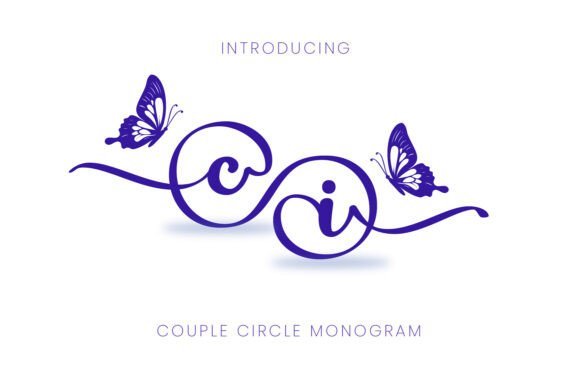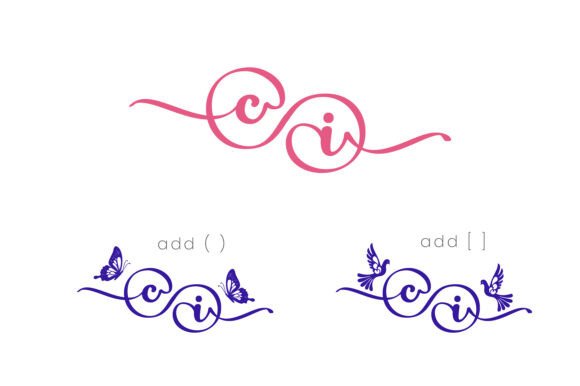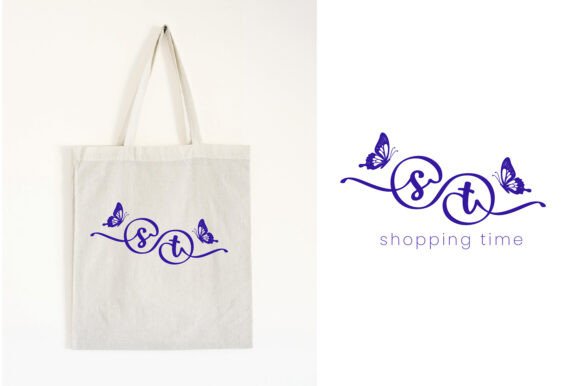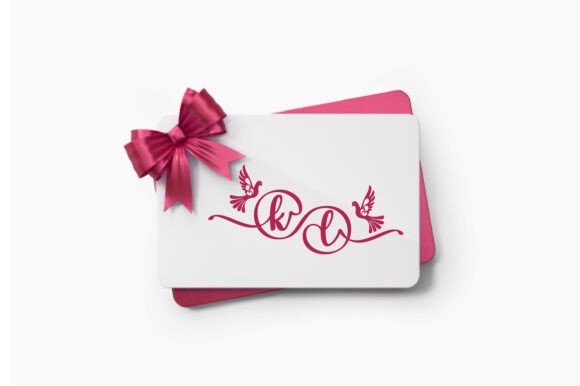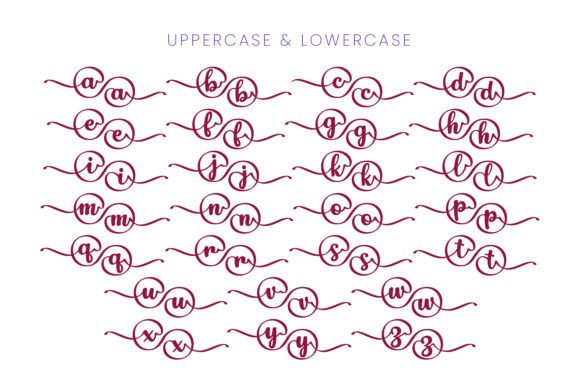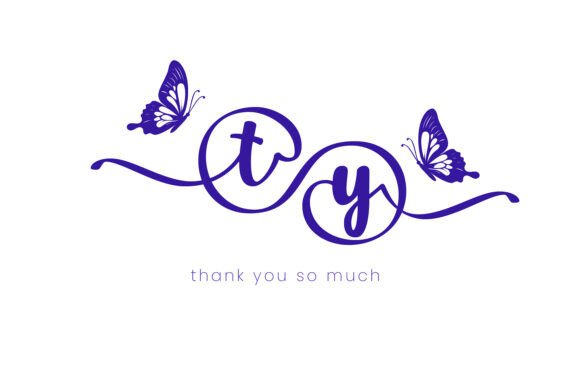
Love in Every Letter
Have you ever been swept off your feet by a beautifully crafted monogram? For me, it was during a wedding invitation design project, where I stumbled upon the Couple Circle Monogram Font. Its delicate curves and elegant charm instantly caught my eye, and I knew I had to learn more about it.
The Couple Circle Monogram Font is a stunning font designed specifically for romantic occasions, such as weddings and anniversaries. Its unique combination of letters, adorned with butterflies and doves, adds a touch of whimsy and sophistication to any design. As a designer, I can appreciate the value of this font in creating personalized gifts, logos, and invitations that truly stand out.
Whether you’re a seasoned designer or a DIY enthusiast, the Couple Circle Monogram Font is a must-have in your toolkit. Its versatility and beauty make it an ideal choice for any project that requires a touch of romance and elegance.
Couple Circle Monogram Font Key Features
- Font Style: A unique, modern monogram font designed specifically for couples, ideal for wedding invitations, announcements, and other special occasions.
- Character Count: Includes a range of characters, including uppercase and lowercase letters, numbers, and special characters, making it versatile for various designs.
- Unique Characteristics: Features a circular design element that can be customized with initials or names, creating a personalized and romantic touch.
Couple Circle Monogram Font Review
I recently had the chance to work with the Couple Circle Monogram Font, and I wanted to share my honest thoughts on it. Here’s the breakdown.
- The font is highly customizable, allowing you to adjust the size, color, and spacing to fit your design needs.
- The monogram style is elegant and sophisticated, making it perfect for weddings, anniversaries, and other special occasions.
- The font may not be suitable for bold or dramatic designs, as it has a more delicate and intricate feel.
- The customization options can be overwhelming for beginners, and it may take some trial and error to get the look just right.
The Couple Circle Monogram Font is a beautiful and versatile font that is perfect for designers who want to add a touch of elegance to their projects. While it may have some limitations, the benefits far outweigh the drawbacks. With a little practice and patience, you can create stunning designs that showcase the beauty of this font.
For optimal results, use the Couple Circle Monogram Font on a white or light-colored background to ensure visibility.
Use the font to create custom wedding invitations, monogrammed gifts, or personalized stationery.
The Couple Circle Monogram Font is ideal for couples who want a unique and personalized touch in their wedding decor and stationery.